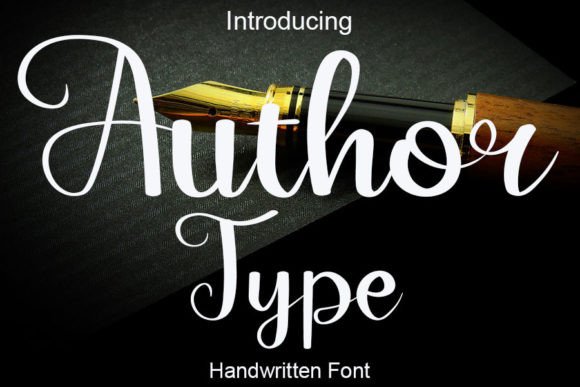
Embrace the Beauty of Expression with Author Type Font, the Quintessential Script for Display Posters!
Immerse yourself in the world of captivating typography with Author Type Font, a script font family that exudes elegance and charm. This meticulously crafted font, meticulously designed by putrasyahreza00, is the embodiment of timeless beauty and distinct style.
With Author Type Font, your designs will transcend the ordinary and soar to new heights of visual appeal. Its graceful curves and sweeping strokes evoke a sense of effortless sophistication, making it the perfect choice for display posters that demand attention. Whether you're a seasoned designer or just starting your creative journey, Author Type Font will unleash your imagination and help you create designs that leave a lasting impression.
Step into a realm of endless possibilities with Author Type Font. Its versatility extends far beyond display posters, making it an ideal choice for a wide range of projects. From eye-catching logos and branding materials to stunning invitations and greeting cards, Author Type Font effortlessly adapts to your creative vision, adding a touch of elegance and refinement to every design.
Experience the transformative power of Author Type Font and witness your designs flourish with an aura of sophistication and charm. As you effortlessly glide through your creative process, you'll discover why Author Type Font is the font of choice for discerning designers worldwide. Embrace the beauty of expression and elevate your designs to new heights with Author Type Font today!